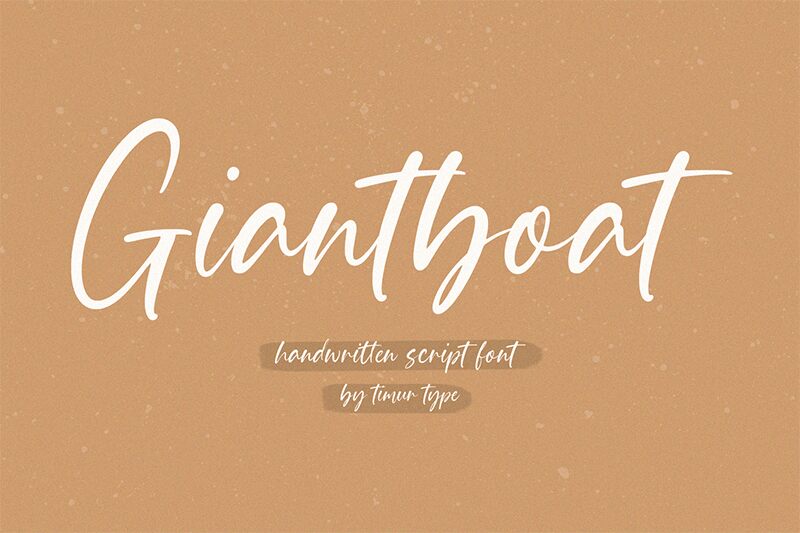
Giantboat
Giantboat, a creation of Timur Type, is a handwritten font that exudes charm and personality. Its strokes are reminiscent of elegant calligraphy, yet with an approachable casualness that makes it versatile and inviting. The playful dance between fluid lines gives each character a distinct presence, suggesting movement and liveliness. This font's style captures the essence of personal touch, making it ideal for designs that aim to convey warmth and authenticity.
Ideal for branding projects, invitations, or any design space that benefits from a human touch, Giantboat brings an air of sophistication without being overly formal. It has the potential to transform mundane text into captivating messages with its distinctive handwritten appeal. Whether gracing the pages of a boutique's branding or adding flair to social media graphics, Giantboat is poised to leave an impression on any canvas it adorns.